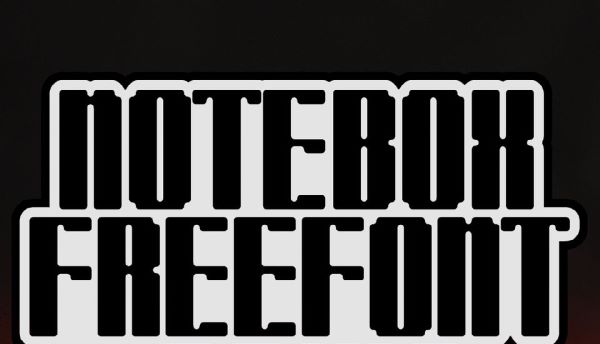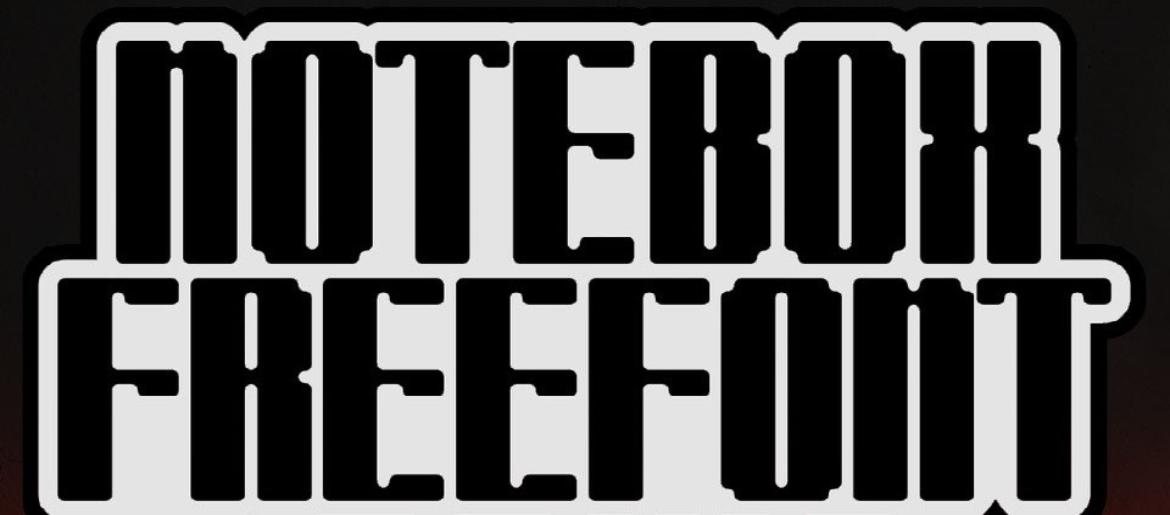
NoteBox Font
NoteBox Font is a compact, pixel-inspired display typeface that combines retro digital aesthetics with modern graphic design needs. Designed around a structured grid system, this bold condensed font features sharp edges, tight proportions, and geometric letterforms that make it excellent for impactful headlines, branding, logos, and typographic compositions. Included in curated collections of modern free fonts, NoteBox balances a blocky, high-contrast structure with readability and rhythmic texture for standout visual identity applications.